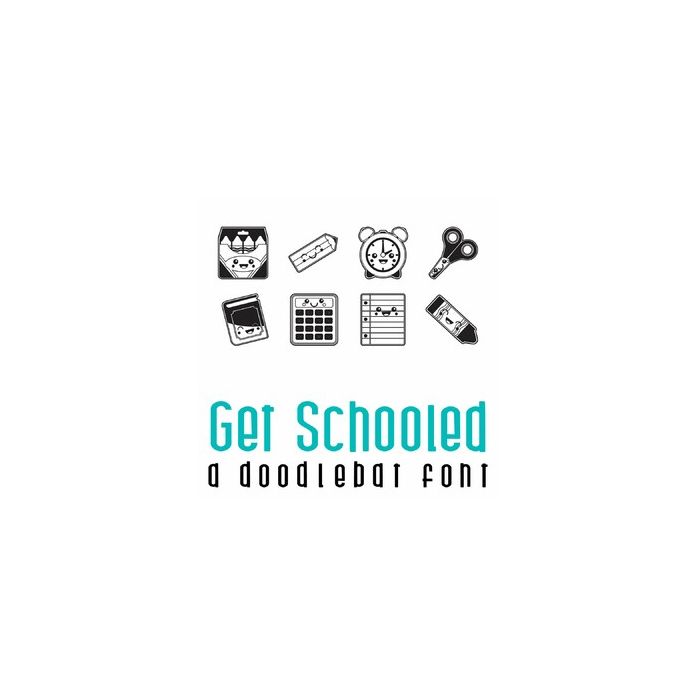
This fun doodlebat font features 26 kawaii style school supplies. Perfect for cards, gifts, decor, crafts, scrap book pages, planner stickers and more!